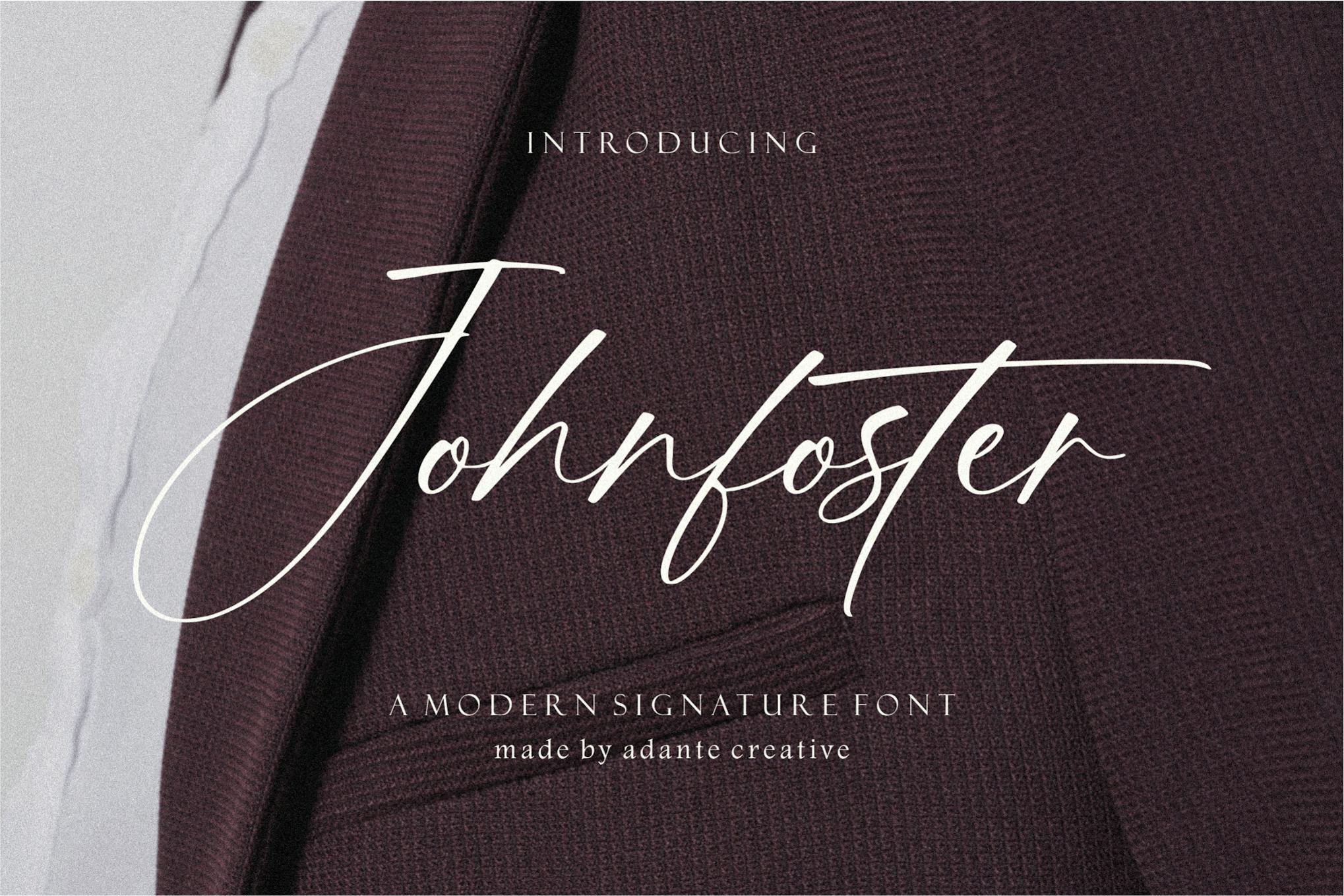
AC - Johnfoster Font
There is a particular satisfaction in finding a typeface that delivers a confident voice that adapts to diverse briefs without compromise. AC - Johnfoster consistently provides it. The typeface brings an elegant, calligraphic sensibility to a broad range of creative disciplines, with controlled contrast that rewards close inspection that holds up whether the work is print-first or screen-first.
In practice, AC - Johnfoster proves particularly effective for environmental graphics, event signage, annual reports, fashion editorials, editorial layouts. Designers reaching for it find that the type decisions feel resolved rather than laboured — a useful quality when client timelines are tight.
The range of applications extends to high-end cosmetic packaging, signage systems, wedding invitations, feminine branding. That breadth is deliberate: the proportions and spacing were stress-tested across a wide range of mock briefs before the typeface was finalised.
Brand strategists building visual languages find AC - Johnfoster a reliable choice for projects that demand both personality and restraint. The design avoids the self-conscious quirkiness that dates quickly, settling instead for considered distinctiveness that holds up over time.